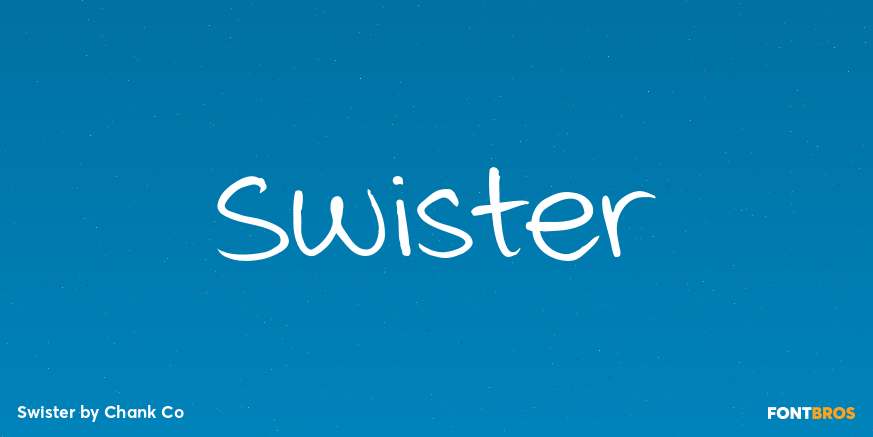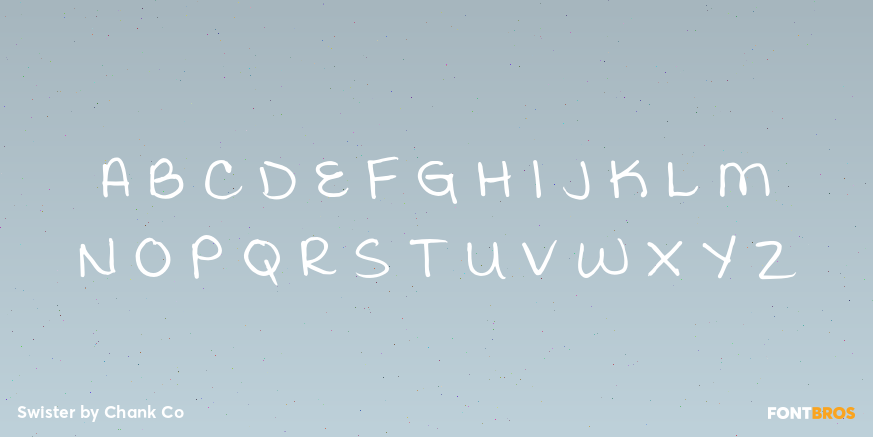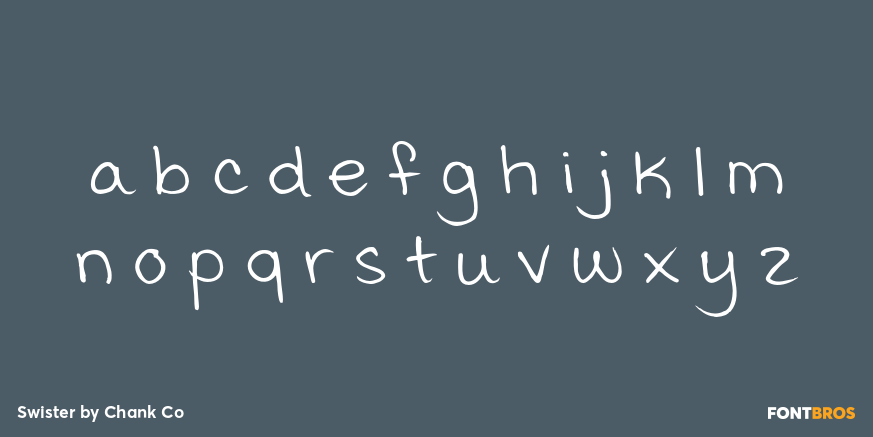
Swister
Font Family by Chank Co
With confident flair and curvaceous downstrokes, this family of handwriting fonts offers an undeniable feminine charm that's youthful, modern and creative. Just like their creator, Alison Olmack, sister of Chank business Manager El Mack, the Swister fonts are light-hearted and friendly, not fussy or rigid.